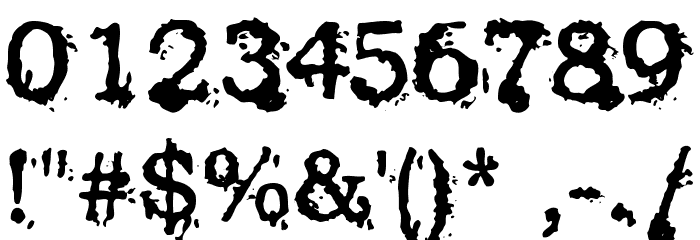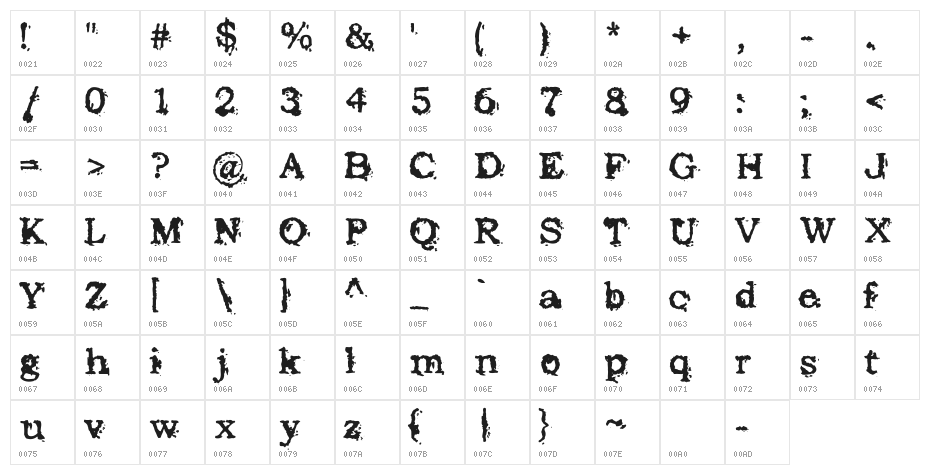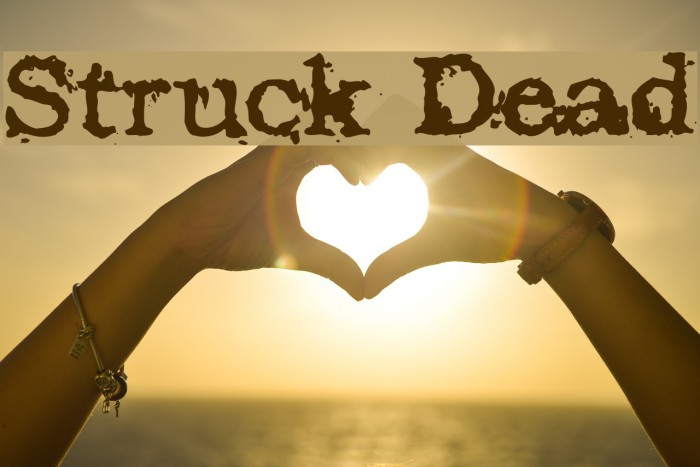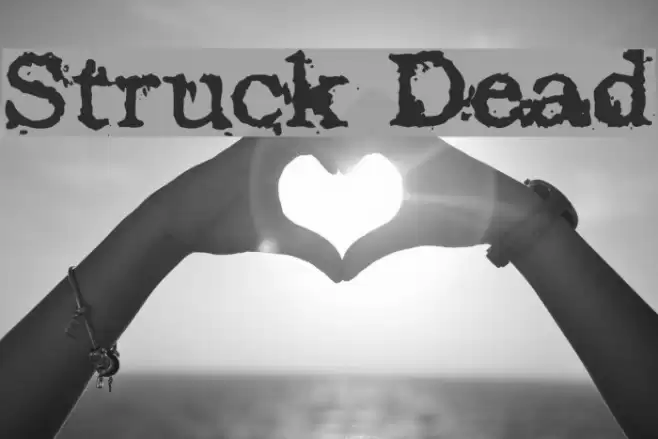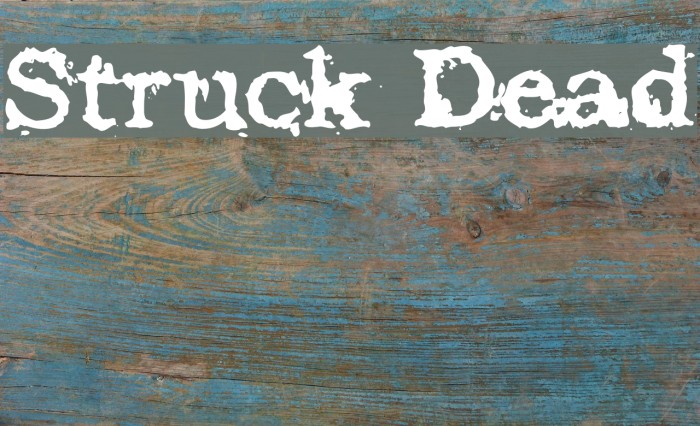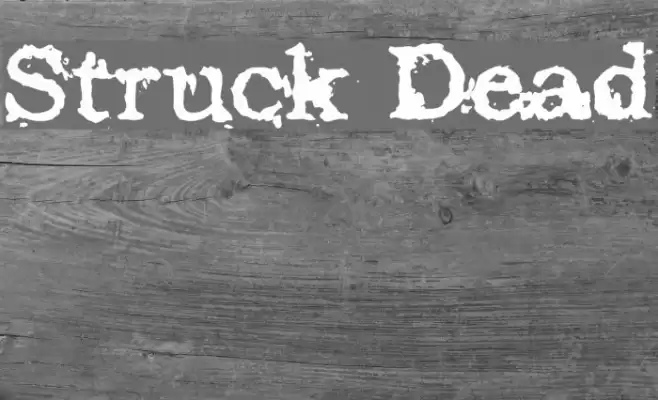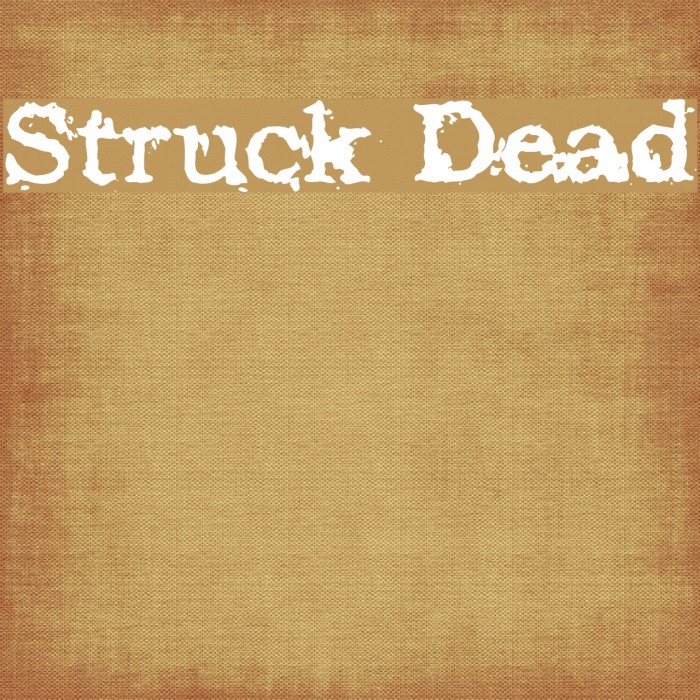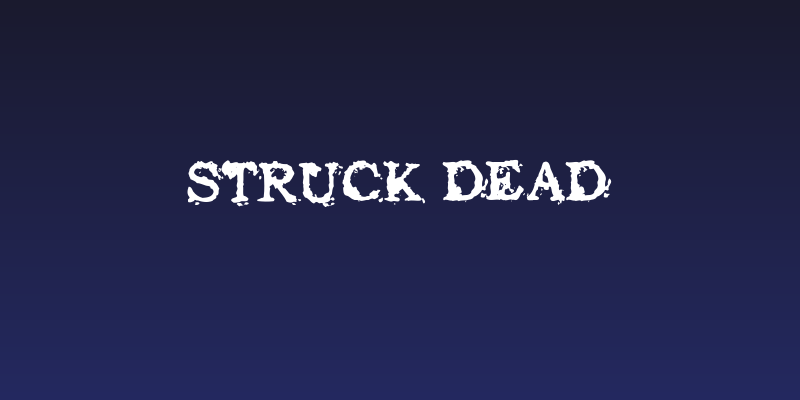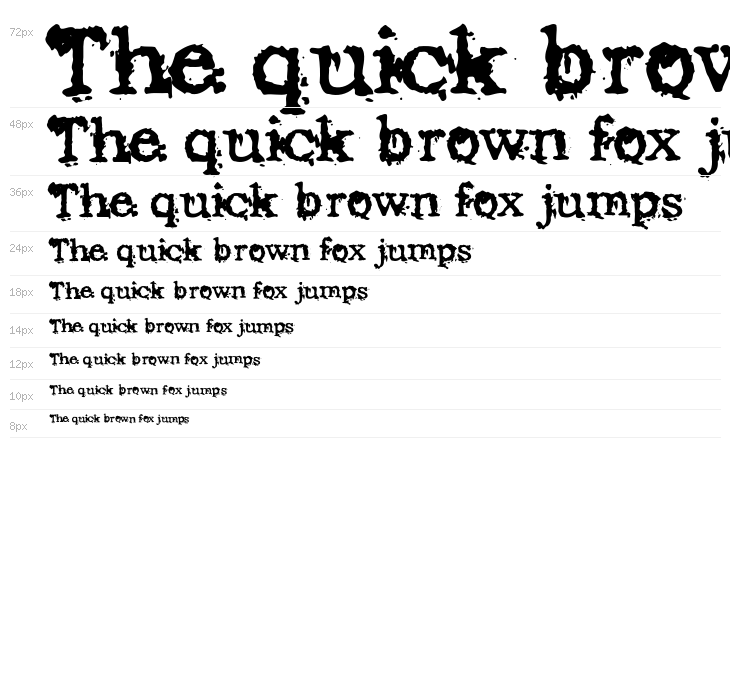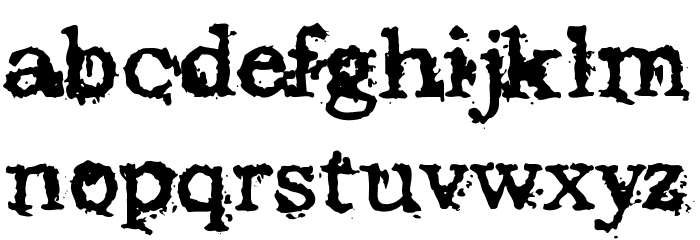
Struck Dead Font
Struck Dead Description
This font features a distressed, grunge style with rough edges and an uneven texture that gives it a worn, weathered appearance. The characters are bold and impactful, with a heavy weight that makes them stand out. The irregularities in the letterforms create a sense of movement and dynamism, making it ideal for projects that require a bold, edgy aesthetic. The uppercase and lowercase letters maintain a consistent style, while the numbers and special characters complement the overall look. This font is perfect for designs that aim to convey a sense of rebellion or nonconformity.
| Overall Style | Grunge, Edgy |
| Proposed Projects | Ideal for album covers, posters, streetwear branding, and edgy graphic designs. |